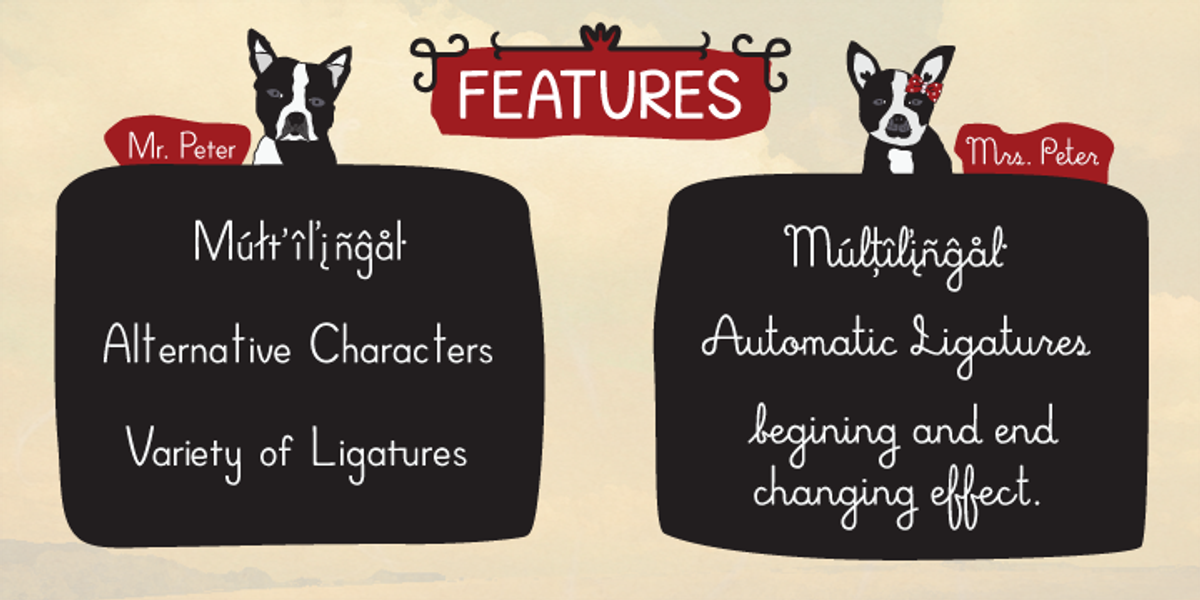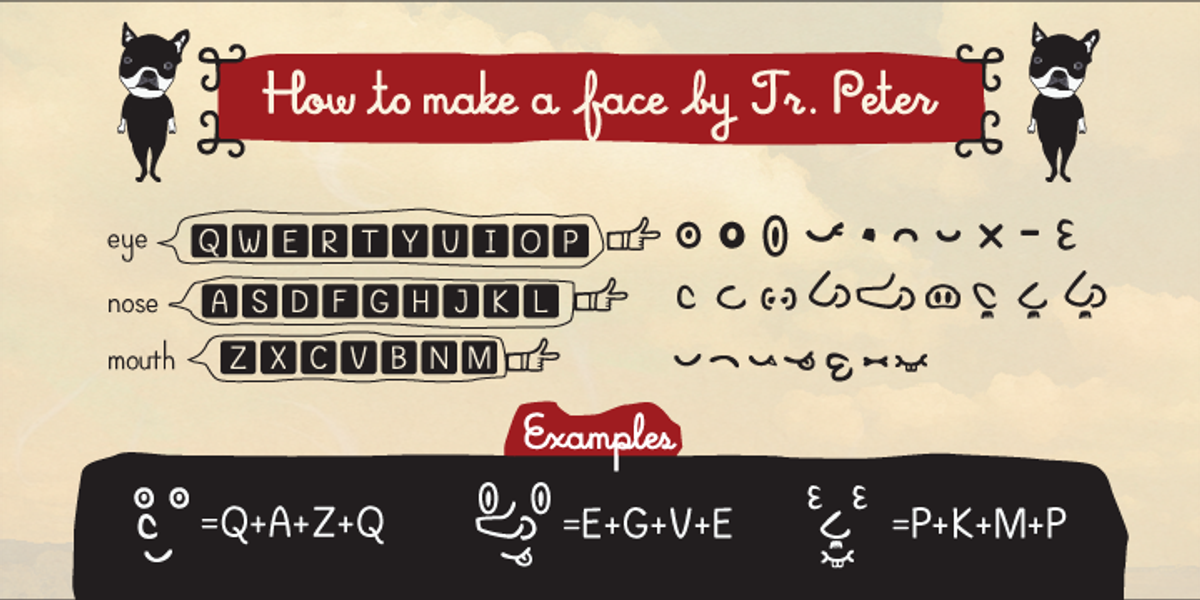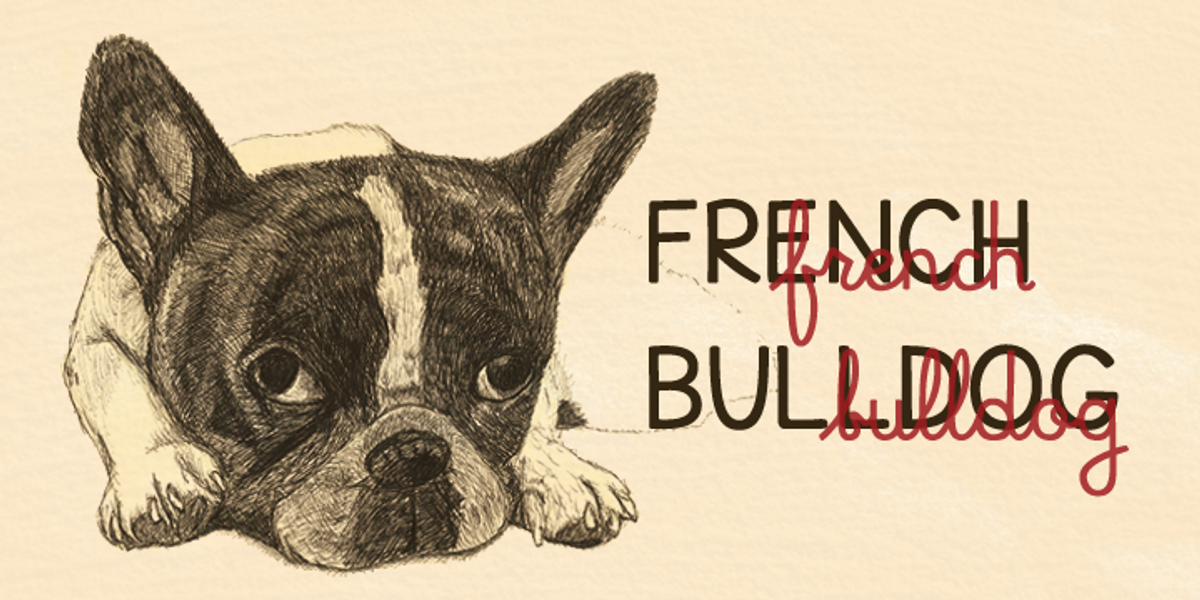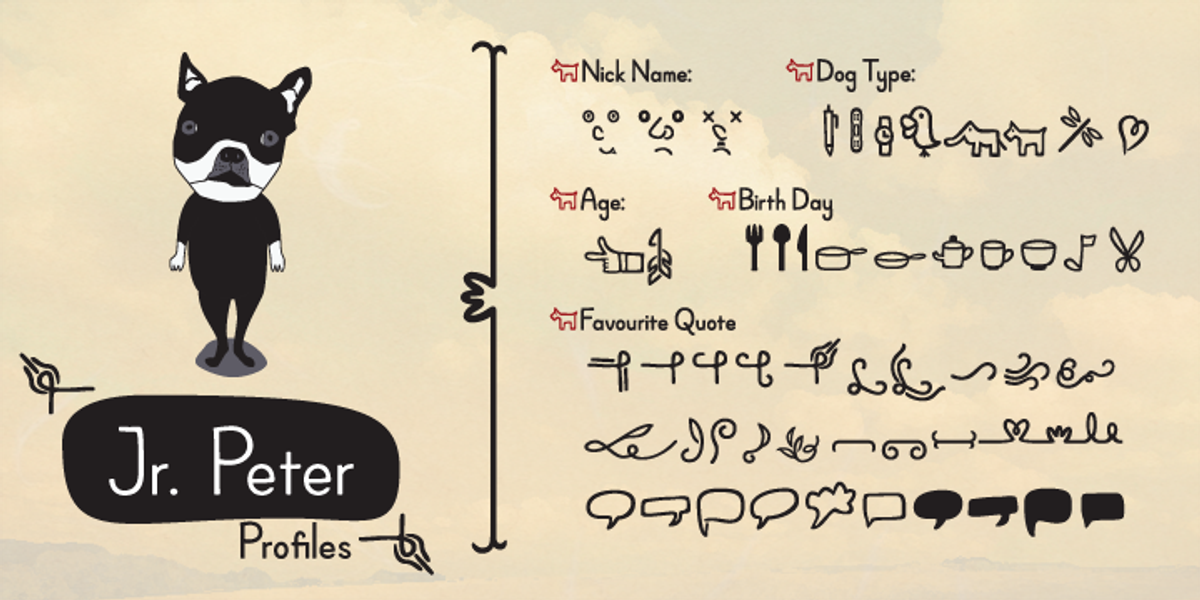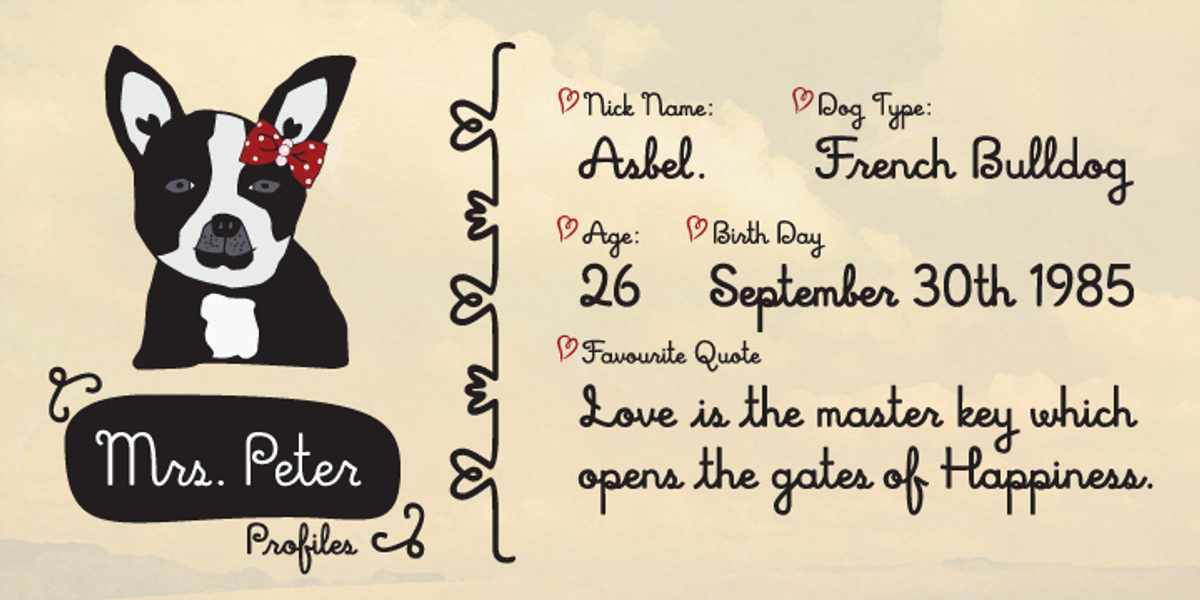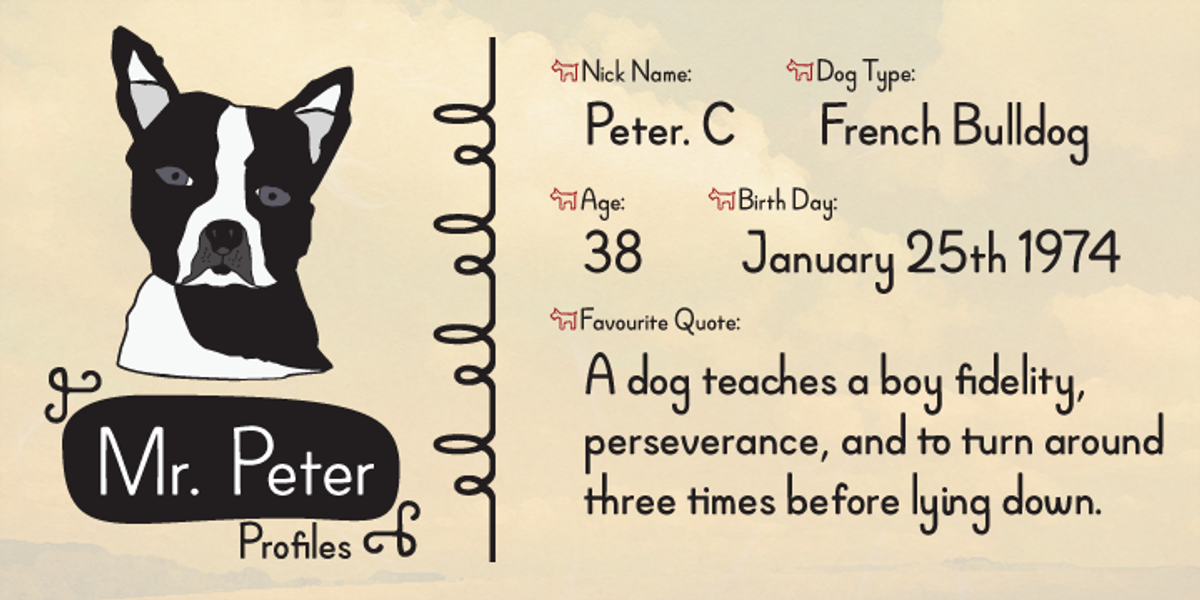
Mr and Mrs Peter
The Peter font family consists of three fonts: Mr. Peter (a handwritten sans serif), Mrs. Peter (a handwritten script), and Jr. Peter (a dingbat font). They are designed to work together. Both Mr. and Mrs. Peter have regular and bold weights, multilingual support, ligatures, and stylistic alternates. Jr. Peter includes around 100 unique icons and ornaments for creating diverse designs.